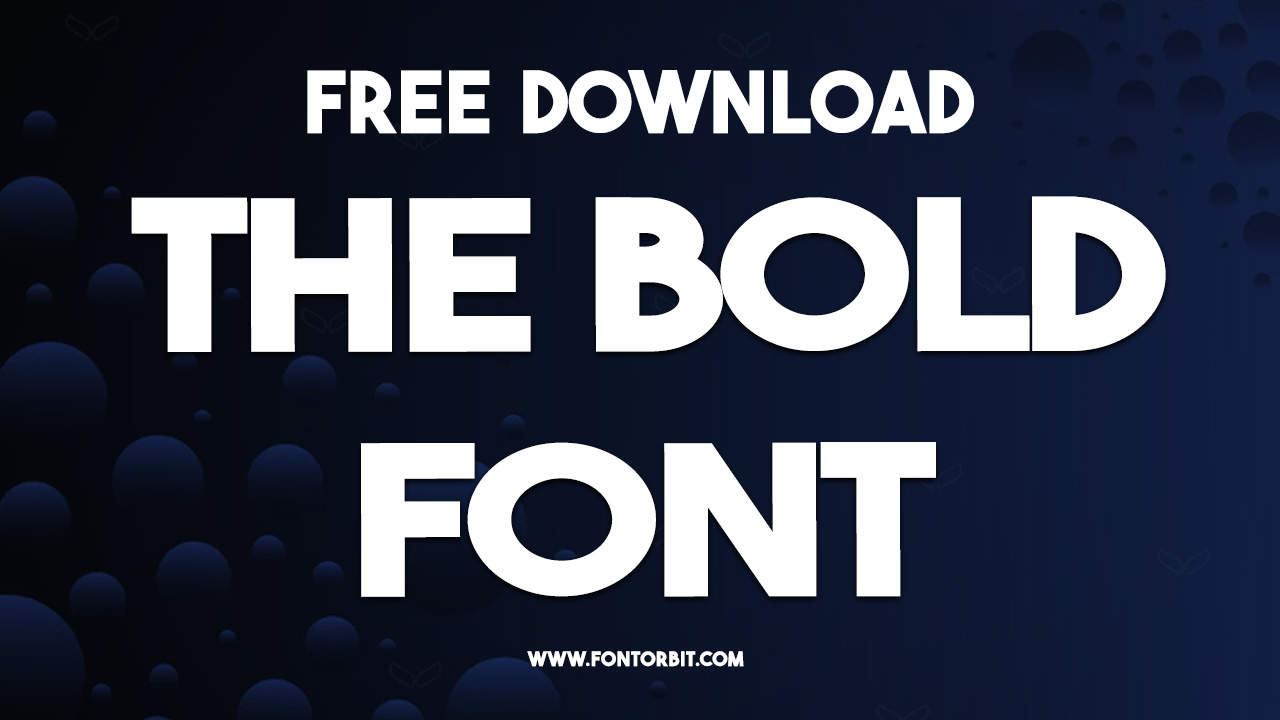
The Bold Font is a striking and modern typeface designed by Sven Pels. First released in 2017, it quickly became popular for its clean, bold aesthetic that suits a variety of design needs.
The font belongs to the sans-serif family, characterized by strong lines, making it perfect for headlines, branding, posters, and other impactful uses.
The Bold Font family includes versatile styles that can adapt to different design requirements. It is available in multiple weights and formats, making it a flexible option for both digital and print projects.
Notable Uses Of The Bold Font
The Bold Font has been used in various high-visibility projects, particularly for branding, logos, and advertising campaigns. Its strong presence makes it ideal for:
- Branding and Logo Design
- Magazine and Newspaper Headlines
- Posters and Billboards
- T-shirt and Merchandise Designs
The Bold Font is best suited for bold and impactful designs. Here are a few key scenarios where it shines:
- logos
- business cards
- promotional materials
- Marketing Campaigns
The Bold Font is a robust and modern typeface perfect for designers looking to make a bold statement. Its clean lines and strong presence make it versatile enough for various projects, from logos to large-scale marketing materials. If you’re searching for a striking sans-serif font that can leave a lasting impression, The Bold Font is an excellent choice.
3.What Is The Best Use For The Bold Font?
The font is best suited for logos, headlines, and advertising materials that need bold impact.
4.Can I Use The Bold Font On Websites?
Yes, it works well in website headers, banners, and navigation menus.
6.Is The Bold Font Good For Print?
Yes, itβs ideal for printed materials like posters, banners, and magazines.